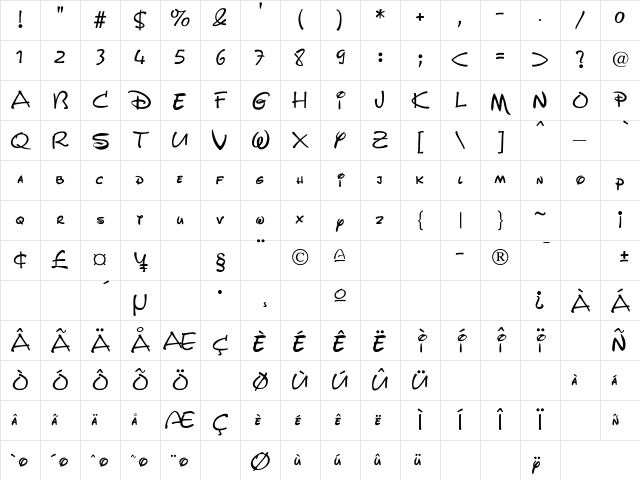
Walt Disney Script Regular
Walt Disney Script Family
Complete Walt Disney Script Regular glyph index. Displaying only characters natively supported by Walt Disney Script Regular font.
Design Context for Walt Disney Script
Walt Disney Script flows with the natural rhythm of handwritten lettering, making it ideal for designs that call for warmth and personal expression.
Font Pairing: Combine Walt Disney Script with a simple geometric sans for maximum contrast - the tension between flowing curves and clean structure is a classic typographic pairing.
Pro Tip: Use Walt Disney Script for short runs of text - names, titles, or taglines. Extended body copy in script faces tires the eye quickly.